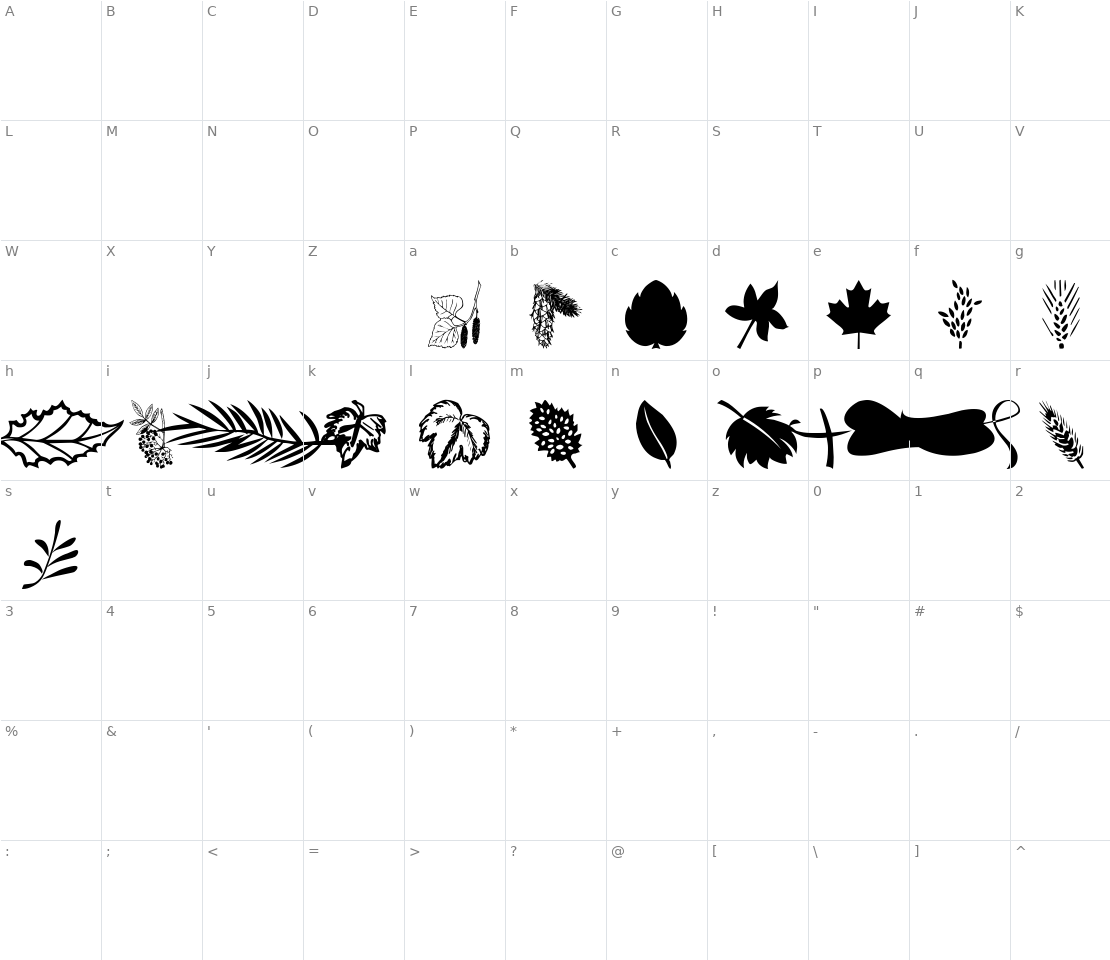
WM Leaves 1
by WillyMac
WM Leaves 1 is a decorative symbol font from WillyMac featuring silhouettes of various leaf and foliage shapes. Rather than letters, each keystroke produces a different botanical illustration, making it a useful resource for borders, patterns, nature-themed layouts, and anywhere you need quick plant imagery without reaching for separate clip art.